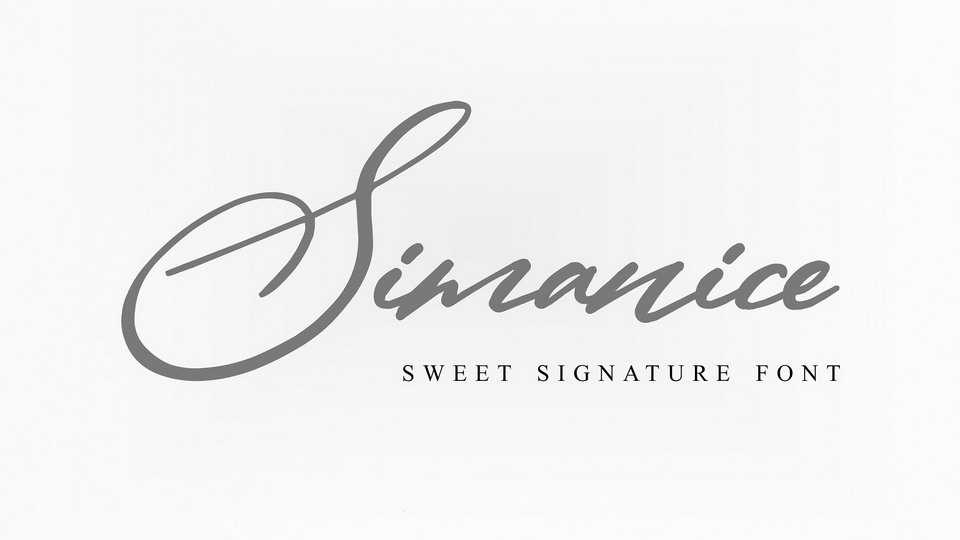
Download Simanice font, a fashionable signature style script with a with an impressive strokes, suitable for logos, branding, magazines, blog posts, social media, advertisements & product designs.